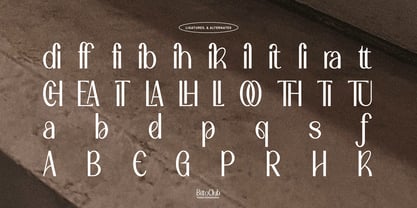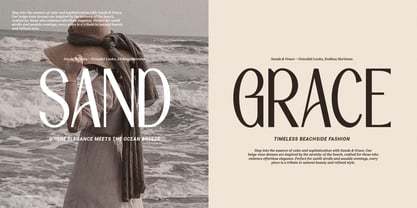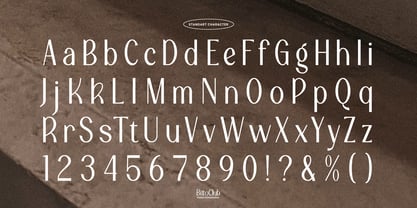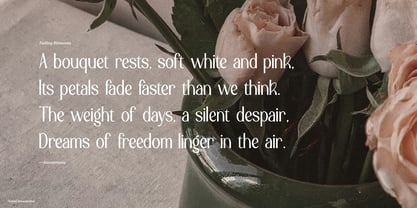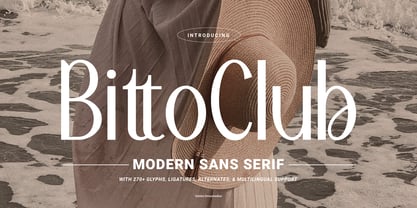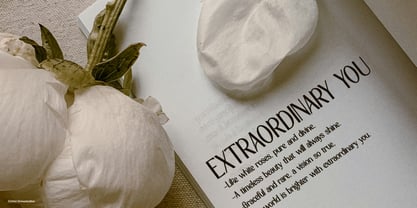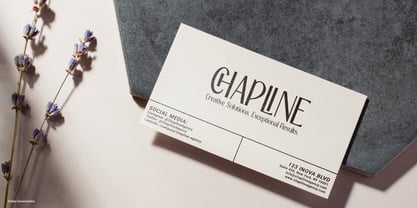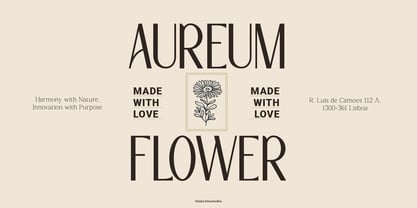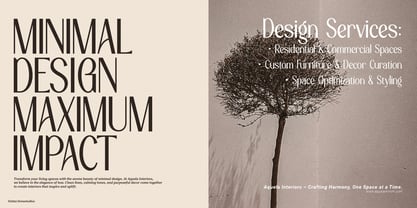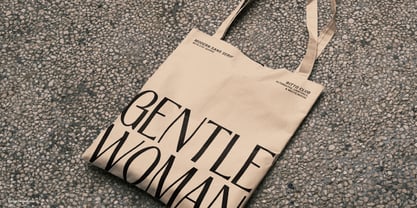
Bitto Club
The Bitto Club Font Family was designed by Dede Nugraha and published by Denustudio. Bitto Club contains 2 styles and family package options. More about this family
Bitto Club | Modern Sans Serif, from Denustudios, suitable for any projects such as: logos, branding projects, homeware designs, product packaging, mugs, quotes, posters, shopping bags, t-shirts, book covers, name card, invitation cards, greeting cards, label, photography, watermark, special events, and all your other lovely projects that need a Modern Sans Serif taste.
• Regular and Italic
• Alternate and Ligature
• Fonts include multilingual support